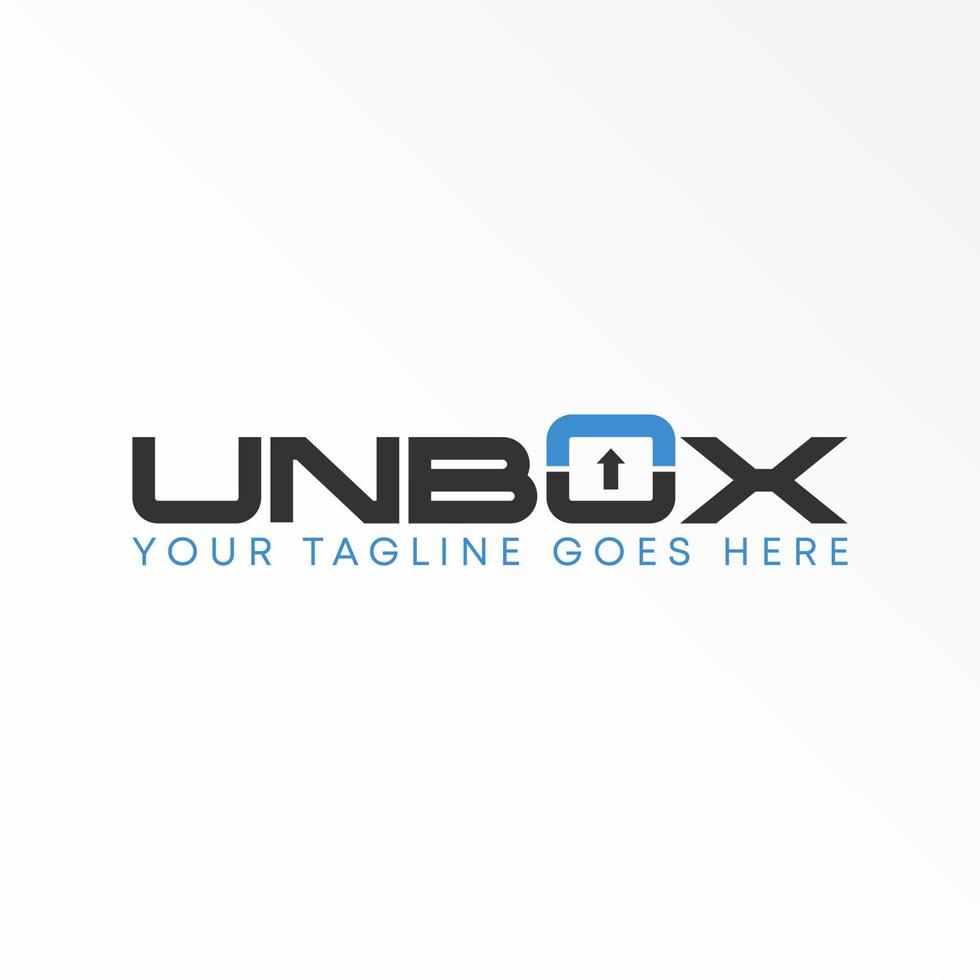
Letter or word UNBOX sans serif font with Arrow or up image graphic icon logo design abstract concept vector stock. Can be used as a symbol related to wordmark. Pro Vector